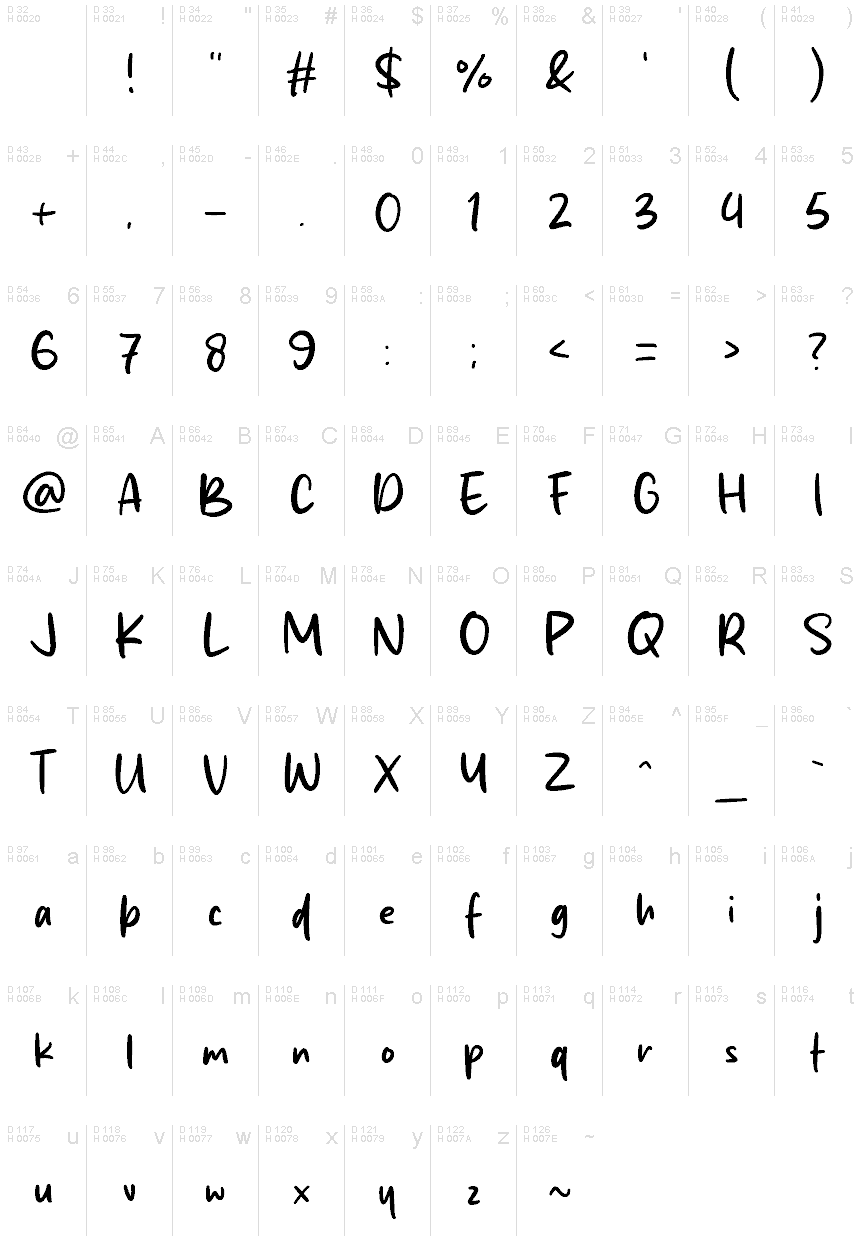
Sunfish Original
In MJType’s opinion, there is no such thing as too much fun and that’s why they created the Sunfish Original font, a friendly handwritten typeface. The Sunfish Original brings a relaxed vibe to your designs with its thick script strokes and swashes.
The handwritten quality of this font makes it perfect for logotypes, menus, T-shirt designs, wedding invitations, and any kind of project where you want to create an easy-going and playful atmosphere. This free font offers 51 different ligatures, alternates, and stylistics to allow for diverse possibilities in branding, photography, packaging, and calligraphy.